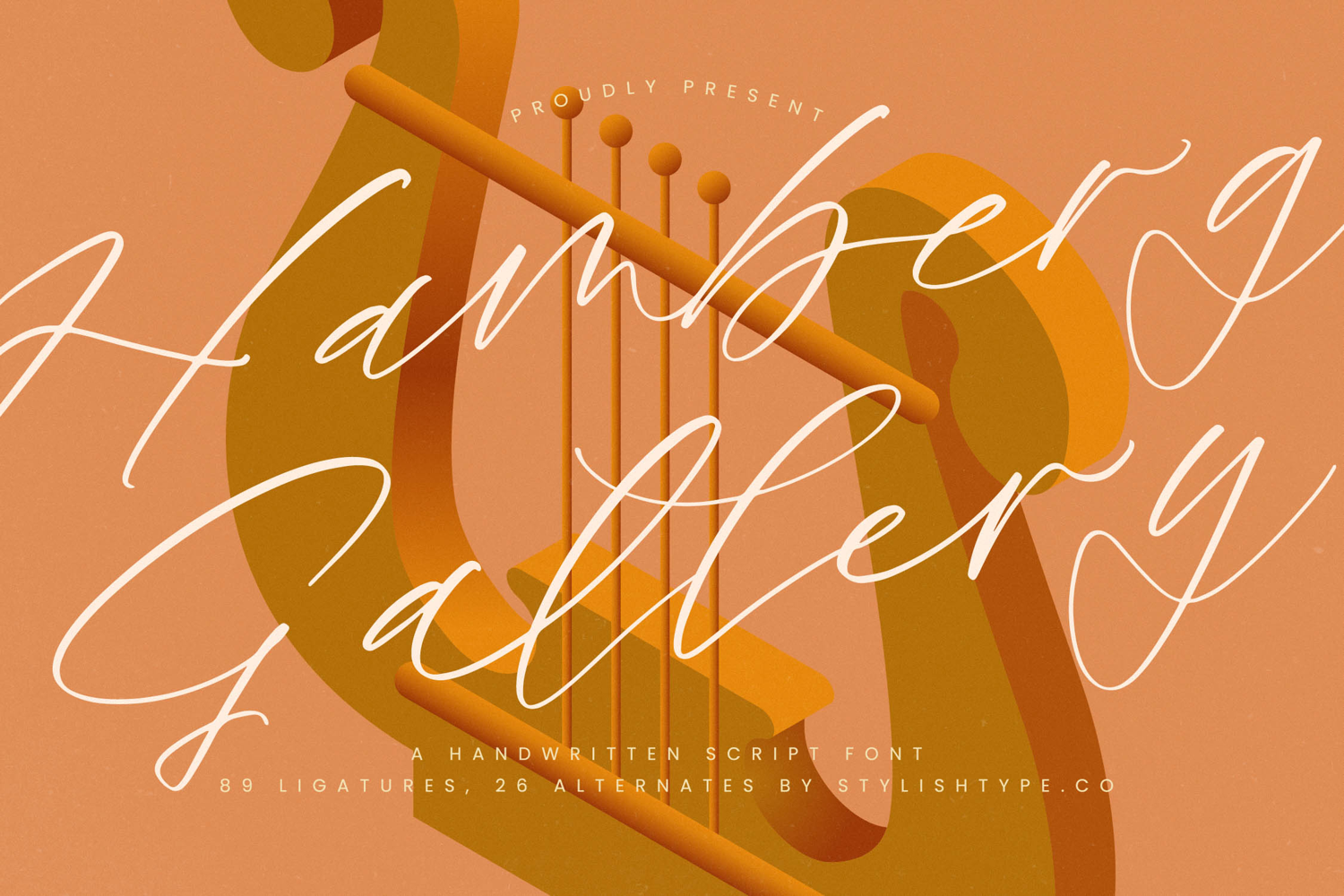
Hamberg Gallery - Handwritten Script Font
Hamberg Gallery - Handwritten Script Font is perfectly suited for luxury branding, high-end event invitations, exclusive product packaging, and sophisticated editorial headers. Its inherent sense of glamour makes it the definitive choice for projects requiring an air of prestige and handcrafted artistry. Invest in this exceptional script font to ensure your visual identity conveys unmatched quality and distinction.